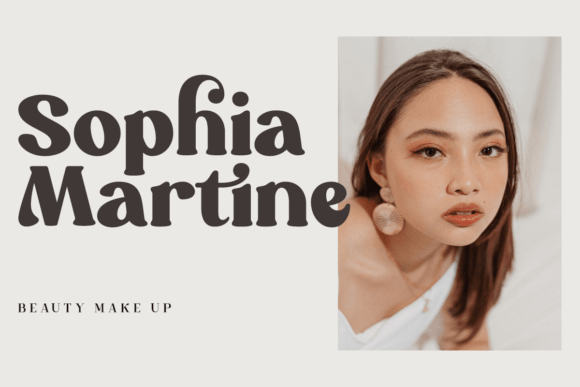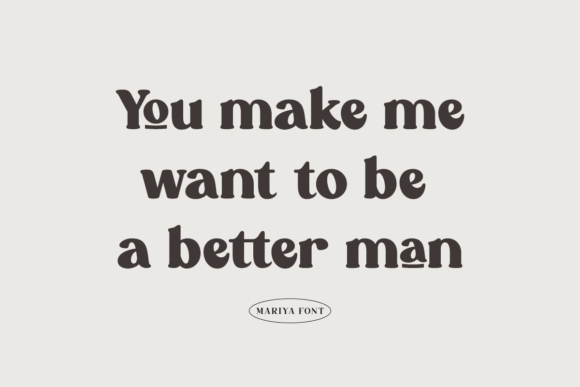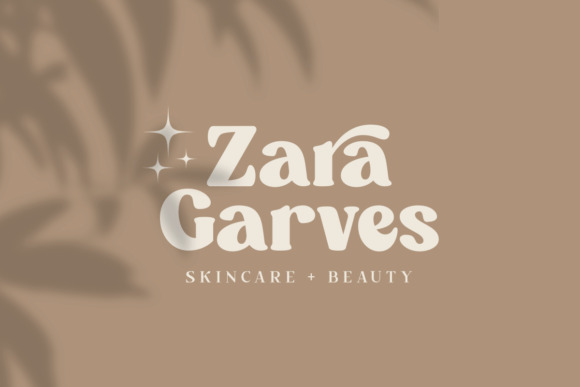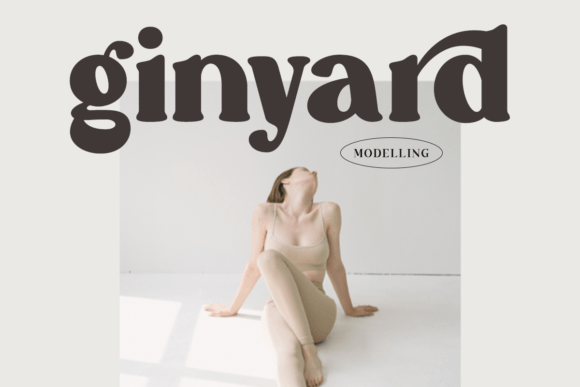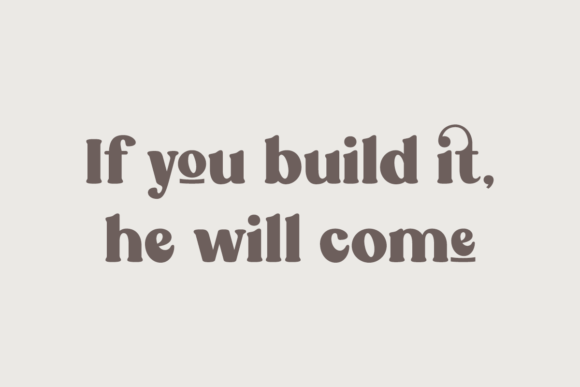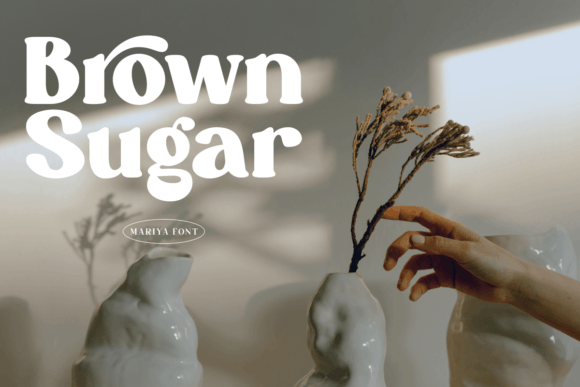
Introduction to Mariya Font
Have you ever been brainstorming ideas for a creative project, only to be stumped by the perfect font? The one that captures the essence of your vision, elevating your design from ordinary to extraordinary? For designers, finding the right font can be the difference between a great project and a mediocre one. That’s why we’re excited to introduce you to the Mariya Font – a stunning, vintage-inspired serif font that’s sure to take your designs to the next level.
With its natural, elegant style, Mariya Font is perfect for a wide range of creative projects, from magazine layouts and posters to movie titles and advertisements. And the best part? This high-quality font is available for free download, making it an invaluable resource for designers on a budget.
Key Features of Mariya Font
• High-quality design: Mariya Font is a premium font designed for creative projects, offering a unique and elegant touch to any design.
• Unique characteristics: This font features a unique blend of modern and vintage elements, making it perfect for designers looking for something different.
• Perfect for creative projects: Mariya Font is designed to add a touch of elegance and sophistication to any creative project, from logos to brochures.
Honest Review: Mariya Font
As a designer, I’m always on the lookout for high-quality fonts to add a touch of elegance to my creative projects. Recently, I came across Mariya Font, and I’m excited to share my honest review.
One of the standout features of Mariya Font is its free download option, making it a fantastic design resource for anyone looking to elevate their work without breaking the bank. The font is available in various styles, including sans-serif and serif, making it versatile enough to suit a range of creative projects.
• ✨ High-quality design that’s perfect for creative projects
• ⚠️ Limited font sizes and styles compared to other premium fonts
• ⚠️ May not be suitable for complex or large-scale designs
Overall, Mariya Font is a solid addition to any designer’s toolkit. While it may not be perfect, its strengths far outweigh its limitations, making it a great choice for designers working on smaller-scale creative projects.
Mariya Font is a versatile font that can be used in various design projects, including creative projects, business documents, and presentations. It’s a great choice for designers who want a high-quality font that works well for various design elements.